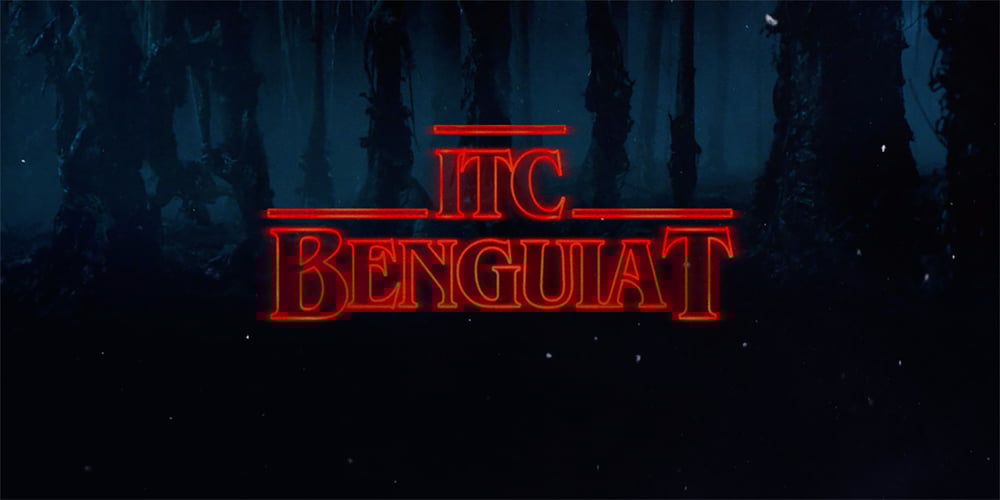
ITC Benguiat Font Family was designed by Edward Benguiat and published by ITC. ITC Benguiat contains 12 styles and family package options. A roman face designed in the early 1980s by Ed Benguiat for ITC, ITC Benguiat shows a strong Art Nouveau influence. As with ITC Korinna, the stress of the ITC Benguiat font family occurs in the upper half of each capital. This distinctive typeface is particularly useful for display and advertising work.ITC Benguiat® font field guide including best practices, font pairings and alternatives.